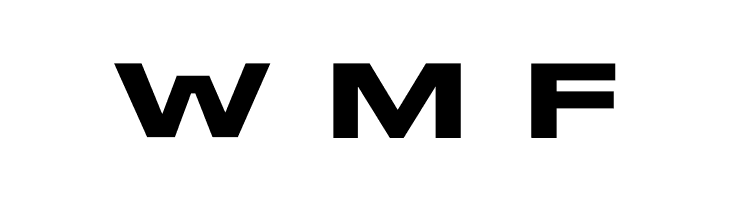
Stretch Pro Font
A bold, modern font with wide, evenly spaced characters and geometric precision.
PhinisiSerif-Bold Font
Font by Jetsmax.com - Personal-use only. For commercial use please contact owner.
A bold serif font with strong strokes and elegant serifs, perfect for impactful designs.
Phinisi Serif Extra Bold Font
Font by Jetsmax.com - Personal-use only. For commercial use please contact owner.
A bold serif font with high contrast and pronounced serifs, ideal for impactful designs.
Melt Fuji Font
Font by Jetsmax Studio
A playful, melting-effect font with bold, rounded characters.
Phinisi Serif Black Font
Font by Jetsmax.com - Personal-use only. For commercial use please contact owner.
A bold, classic serif font with strong, thick strokes and pronounced serifs.
DELMANO MORELLI Font
Font by Jetsmax Studio
A bold, rounded font with a playful and friendly style.
ALTERNATIVE ROCK Border Font
Font by Jetsmax Studio
A bold, hand-drawn font with characters in black squares, offering a raw, edgy style.
Amulman Light Font
Font by Jetsmax Studio
An elegant, whimsical font with flowing, cursive-like strokes and intricate swirls.
Markisa Outline Font
Font by Jetsmax Studio
A playful, bold outline font with a hand-drawn, casual appearance.
Desolator Bold Font
Font by Jetsmax Studio - Khairil Anwar - Personal-use only. For commercial use please contact owner.
A bold, modern sans-serif font with clean, geometric lines and balanced spacing.
Digitata Ground Font